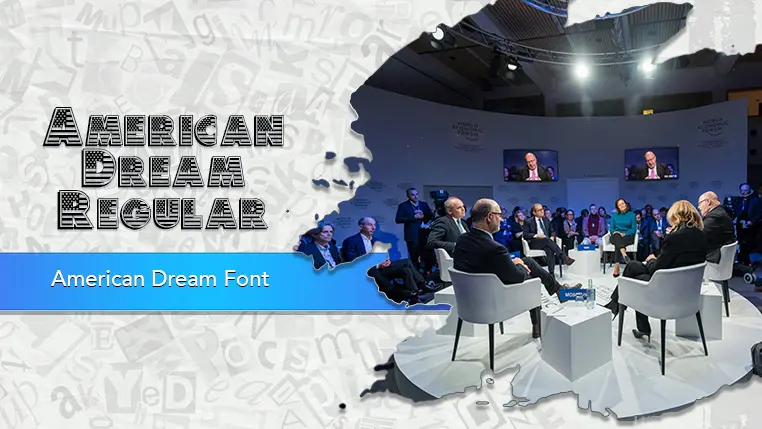
The American Dream font family may be ideal for you if you enjoy working on an artistic design project. The lively, expressive look of this typeface, which was created by Chloe5972, makes it ideal for Posters & Event Titles. Its unique, stylized characters lend a strong personality and artistic flair. We can also use on Greeting Cards & Invitations Especially suitable for themes like Americana, retro events, or bold festive designs. Works well for vintage, retro, or themed designs needing a distinctive aesthetic. and other light-hearted visual projects.
Regular are the one primary font styles of the American Dream font family. You may build dynamic, visually appealing text layouts with the distinct flair that each style offers. With crisp, readable lines and a relaxed tone.